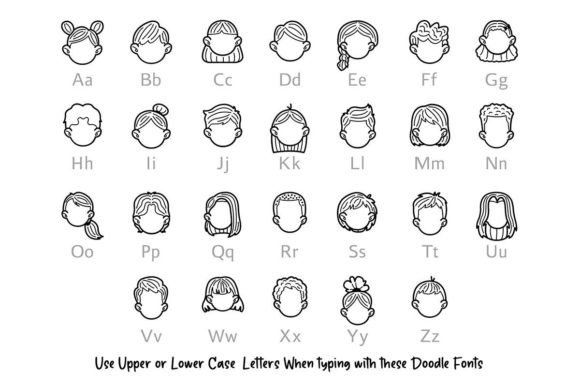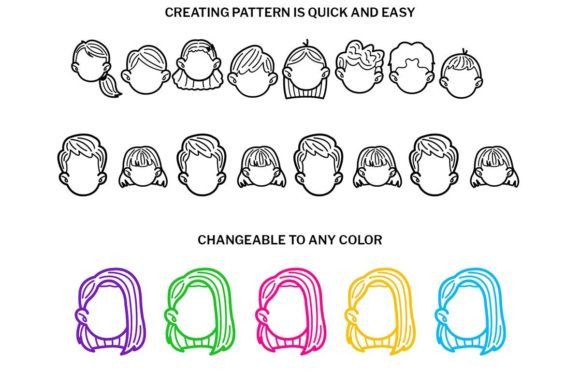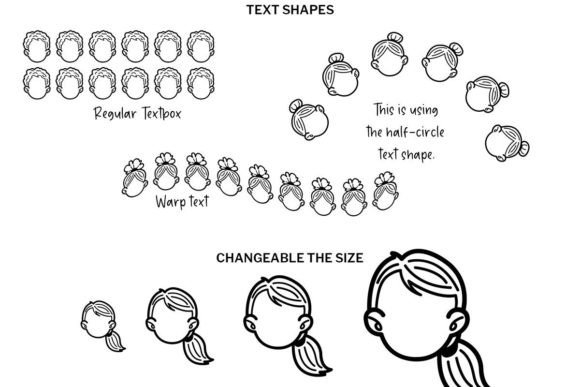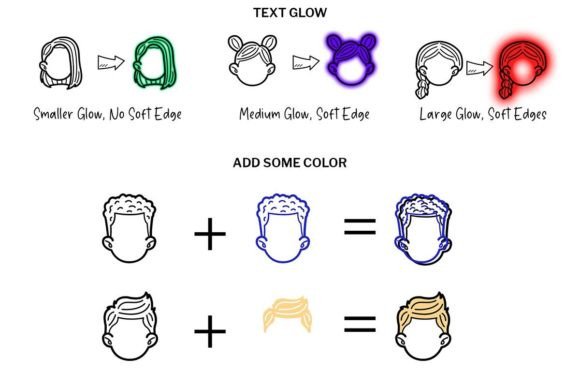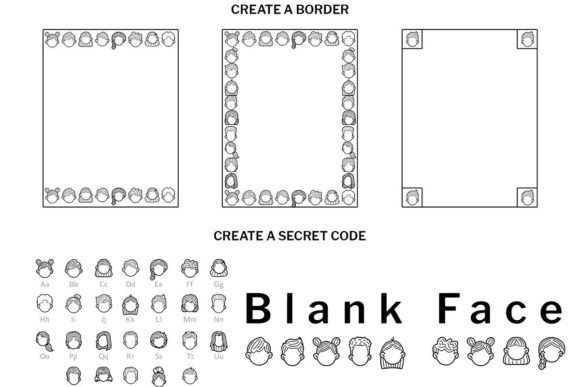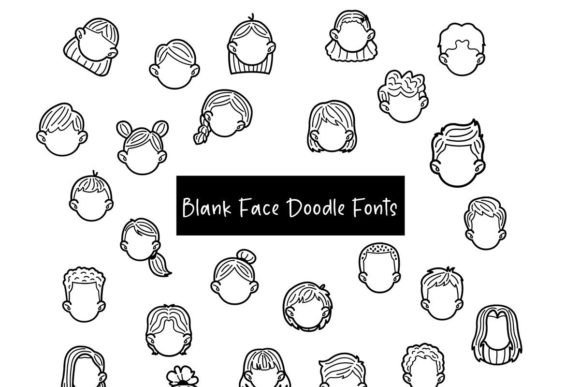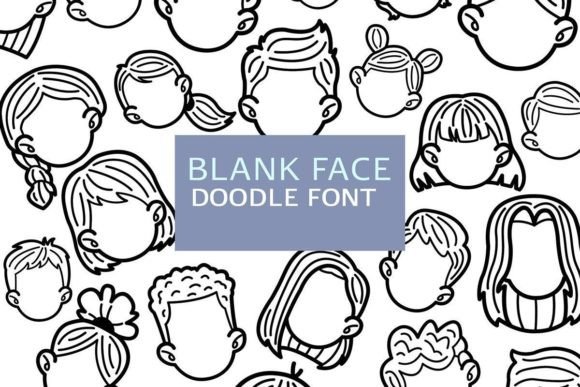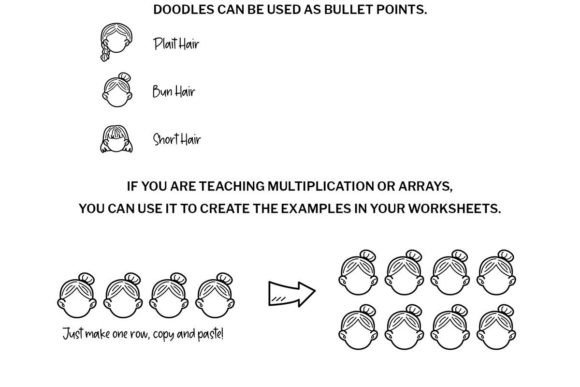
Blank Face Doodle Font
About Blank Face Doodle Font
Introducing Blank Face Doodle, a playful and adorable dingbats font that will bring a touch of whimsy to your creative projects. This font features a collection of charming doodle illustrations in the shape of blank faces, allowing you to unleash your creativity and add a personal touch to your designs.
Blank Face Doodle font offers a wide range of expressive and imaginative doodles, including smiling faces, winking faces, surprised faces, and more. These cute illustrations can be used in a variety of ways to enhance your craft projects, designs, planners, diaries, activity books, and any other creative endeavor you can imagine.
The versatility of Blank Face Doodle font allows you to incorporate these adorable doodles into your projects seamlessly. You can use them as decorative elements, embellishments, or even as placeholders for text or images. Whether you’re creating greeting cards, scrapbooking, designing social media graphics, or personalizing your journal pages, Blank Face Doodle font will add a touch of fun and creativity to your work.
With Blank Face Doodle font, the possibilities are endless. Let your imagination run wild and use these cute and versatile doodles to bring joy and whimsy to your projects. Whether you’re crafting, designing, planning, or journaling, Blank Face Doodle font is your go-to choice for adding a touch of cuteness and playfulness to your creations.
Embrace the versatility of Blank Face Doodle font and let it inspire your next creative adventure. Unleash your creativity, have fun, and watch as these adorable doodles bring your projects to life!